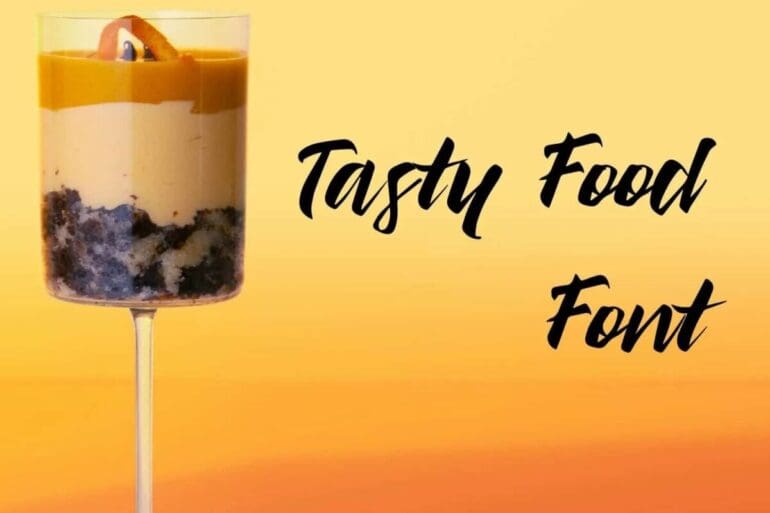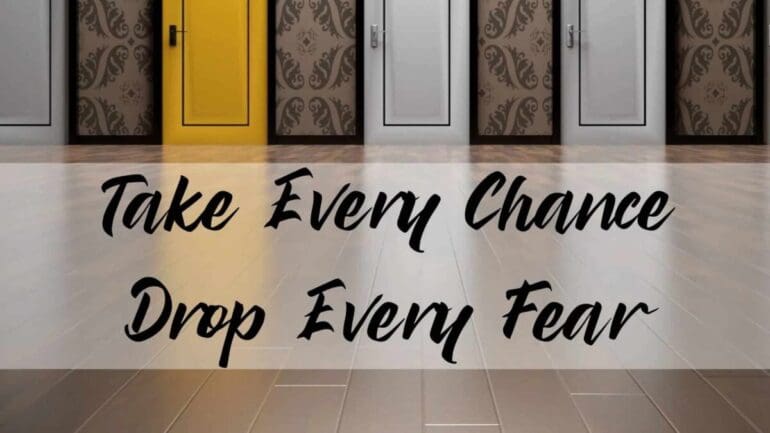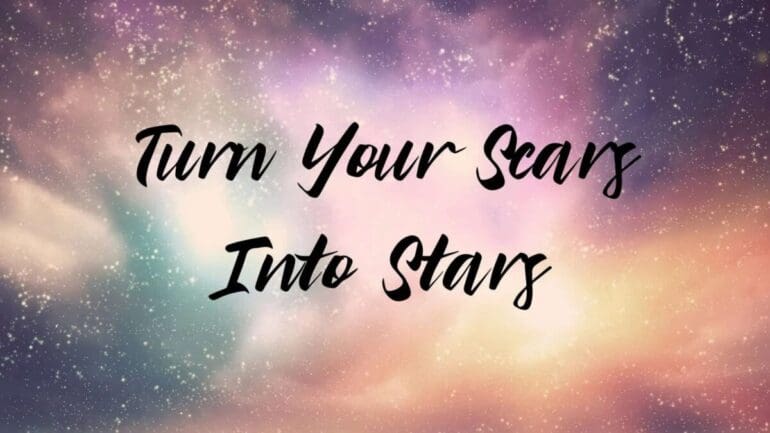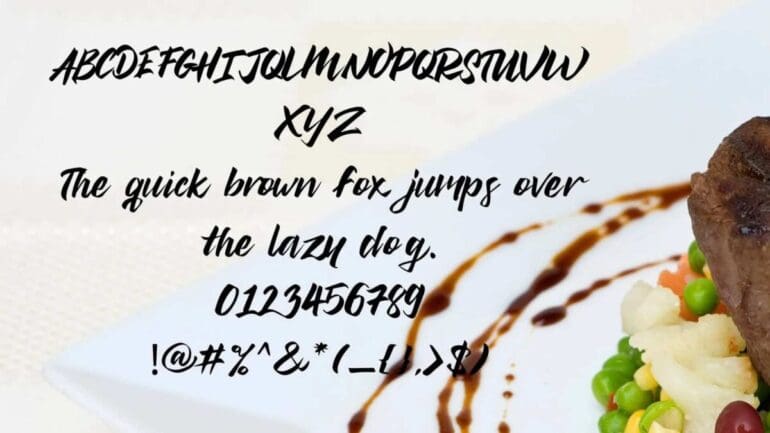
Tasty Food Font
Today we’re featuring the tasty Food Font. This amazing typeface font was designed by a famous designer named “Fontles”. This is a handwritten typeface font with a look of natural brush stroke which is a beautiful handwritten typeface.
This typeface is divided into different families: Medium, Bold, Heavy, and Ultra. It looks like human handwritings if you look at its symbols. It also has 92 other character styles, including numerals, punctuation, symbols, redesigned icons, and uppercase.